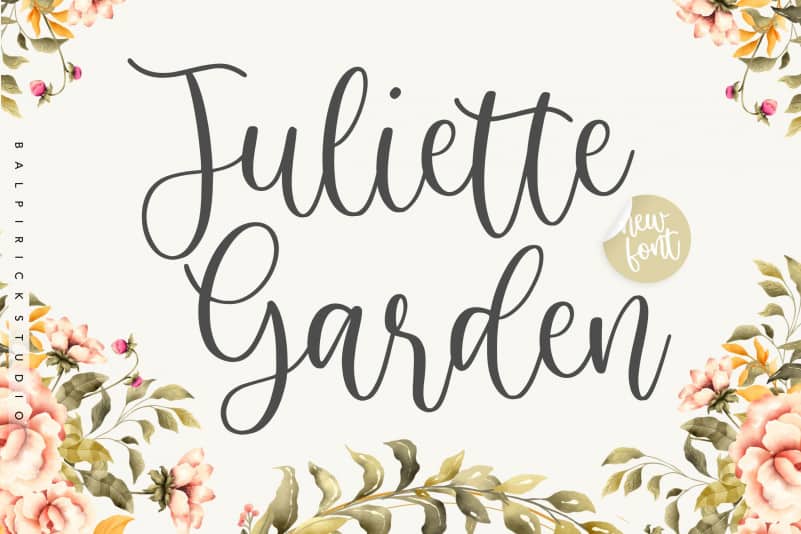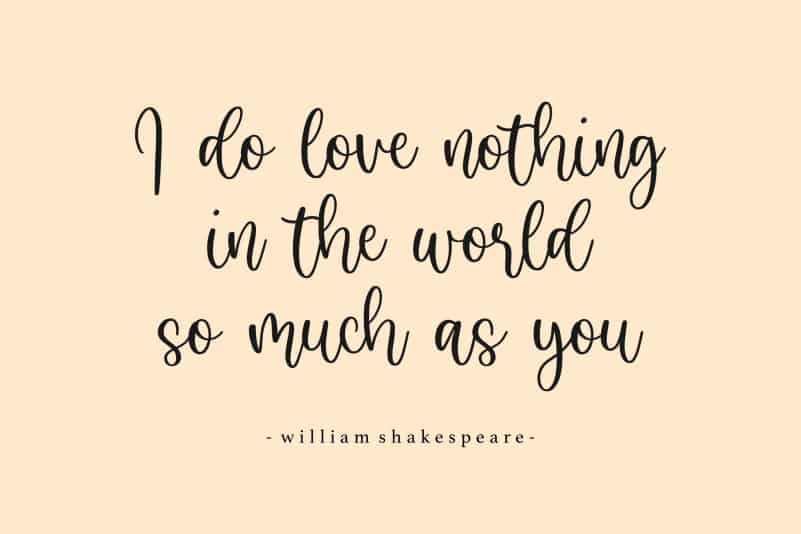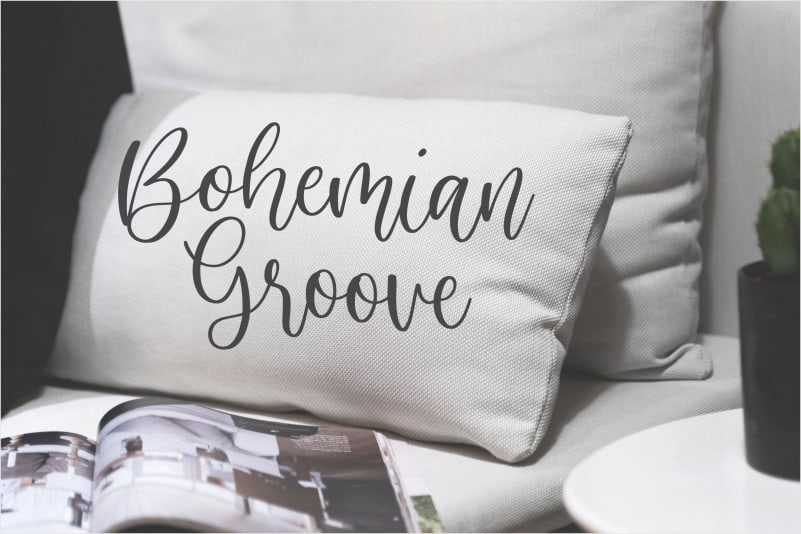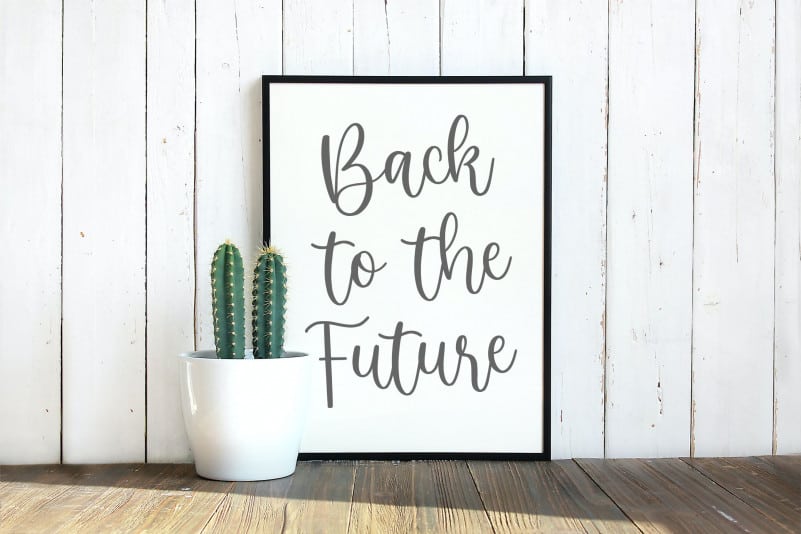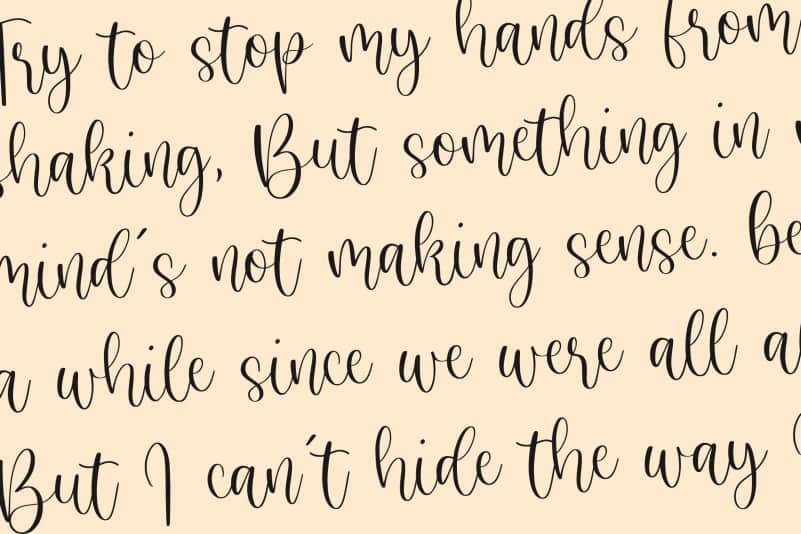
Juliette Garden Modern Calligraphy Font
Proudly Present, Juliette Garden Modern Calligraphy Font.
Juliette Garden is a Modern Calligraphy Font.
It is perfect for product packaging, branding project, megazine, social media, wedding, or just used to express words above the background.